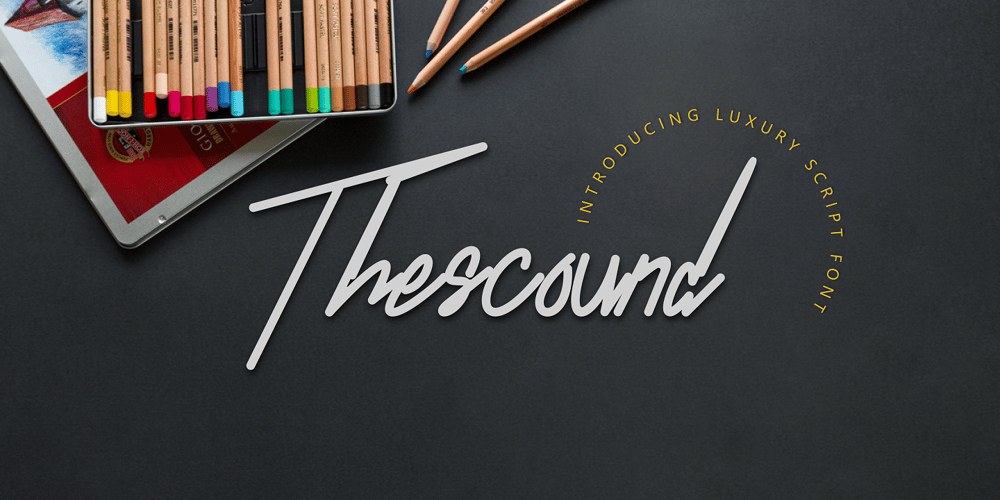
Thescound
Thescound font
Thescound Font Family was designed by Taufiq Wijaya and published by Mifiq. Thescound contains 1 styles and family package options. Thescound is a smooth and elegant handwritten font.Thescound is suitable for social media posts, advertisements, logos & branding, invitations, product design, photography, watermarks, labels, wedding designs, product packaging, any event that requires a handwritten look.